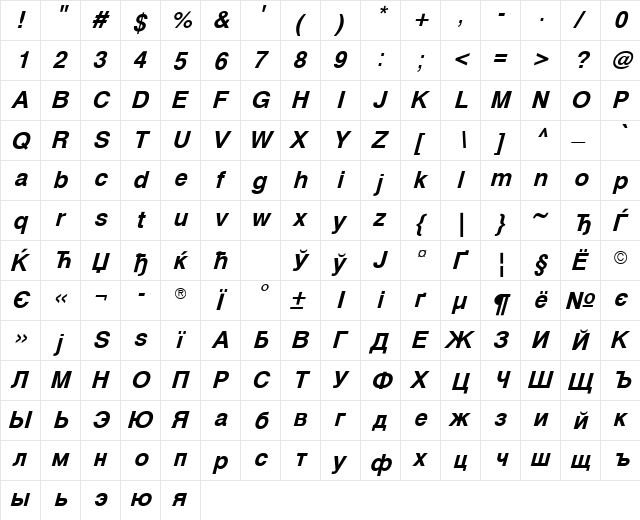
Svoboda Bold Italic
Design Context for Svoboda Typeface
Svoboda is a composed and adaptable typeface that performs quietly and consistently across a wide range of design contexts. Its italic angle brings a sense of urgency and motion to the letterforms. The heavy weight commands attention and anchors typographic hierarchies.
Pro Tip: Use Svoboda for emphasis, pull quotes, and subheadings where its slanted energy can add rhythm to the layout.